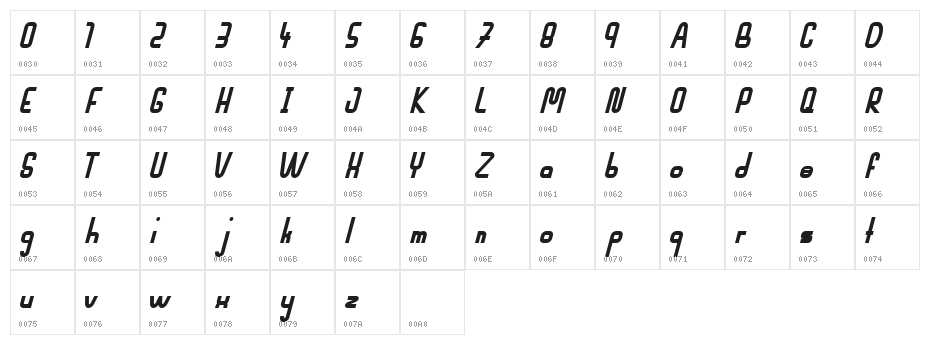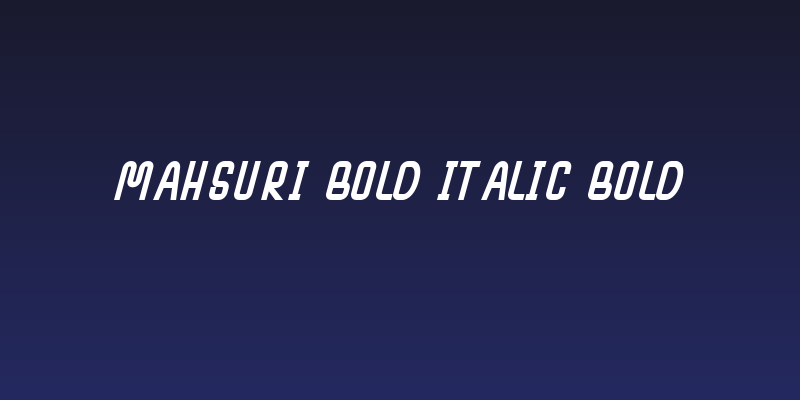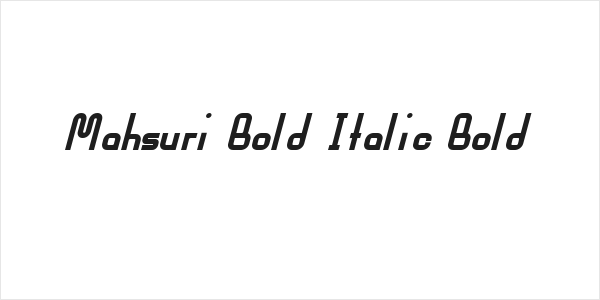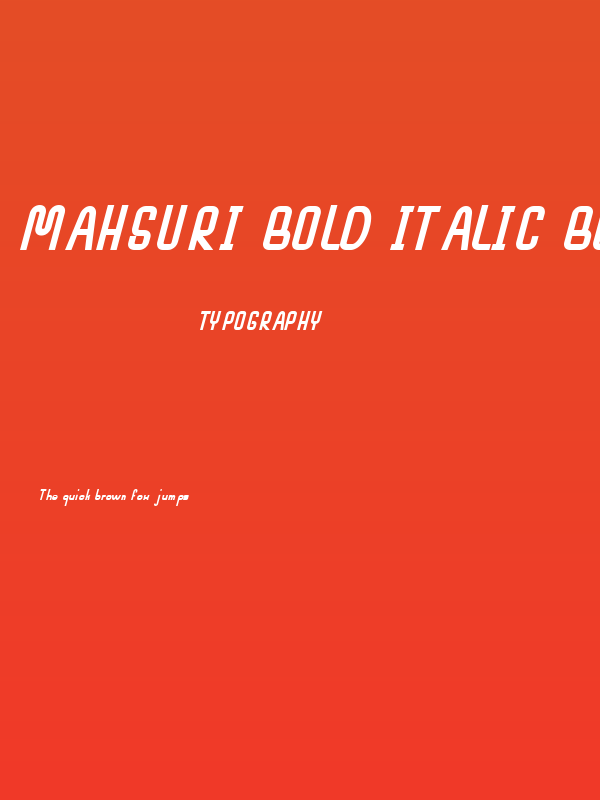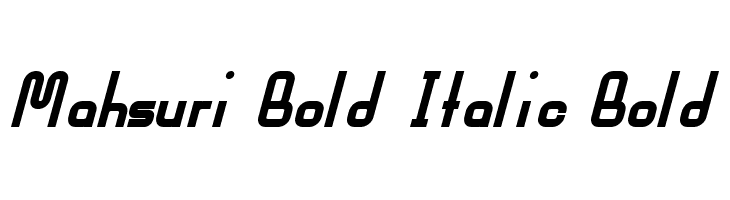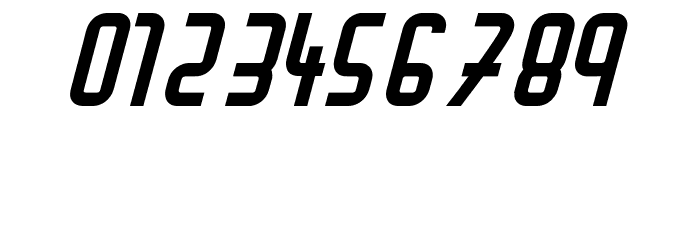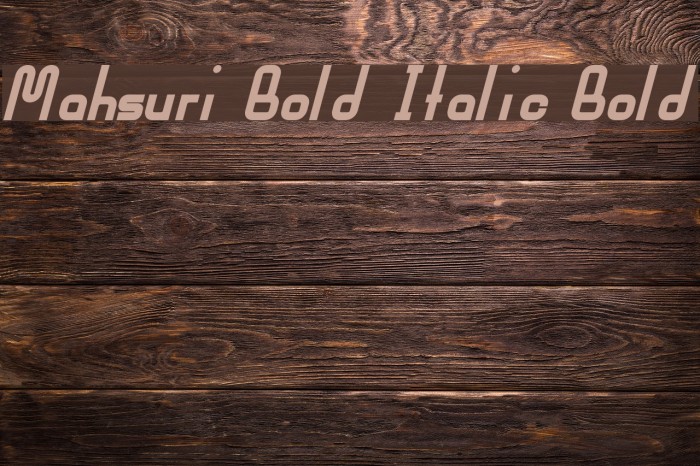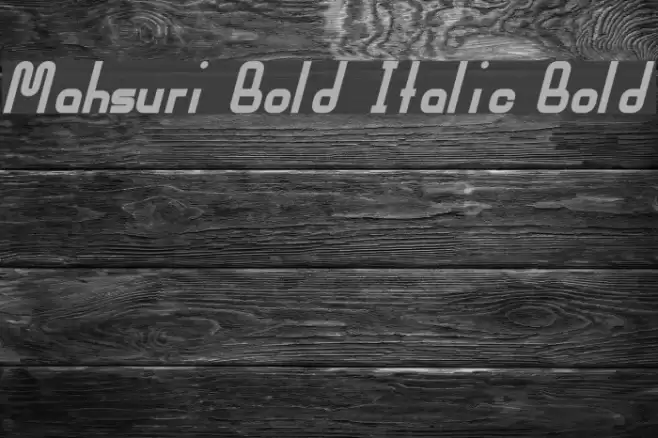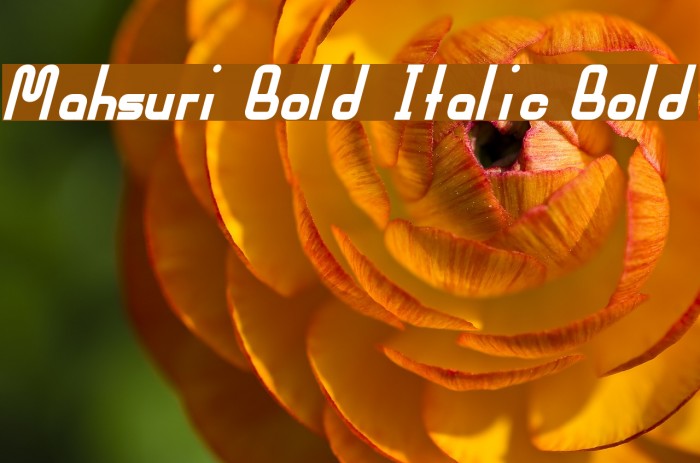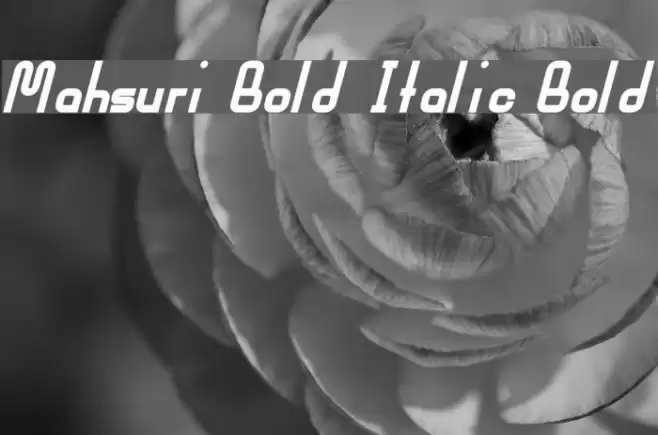
Mahsuri Bold Italic Bold Font
Mahsuri Bold Italic Bold Description
This font exhibits a bold and italic style, characterized by its strong and dynamic appearance. The letters are slightly slanted, giving it an energetic and forward-moving feel. The strokes are thick and consistent, providing a robust and impactful look. The design is modern, with a touch of elegance due to its italic nature. The characters are well-defined, with a slight curvature that adds a unique flair. This font is suitable for projects that require a bold statement, combining both strength and style. The numbers and special characters maintain the same bold and italic characteristics, ensuring a cohesive look across all elements.
| Proposed Projects | Ideal for branding, headlines, posters, and any design requiring a strong visual impact. |